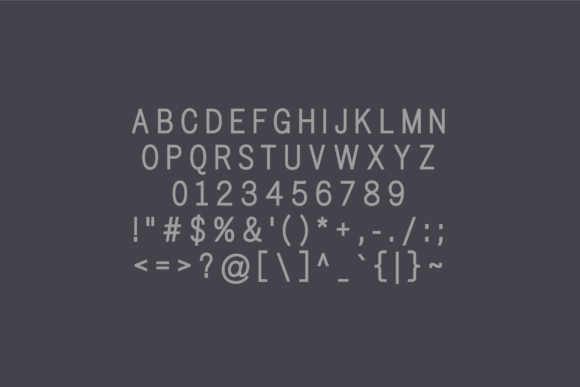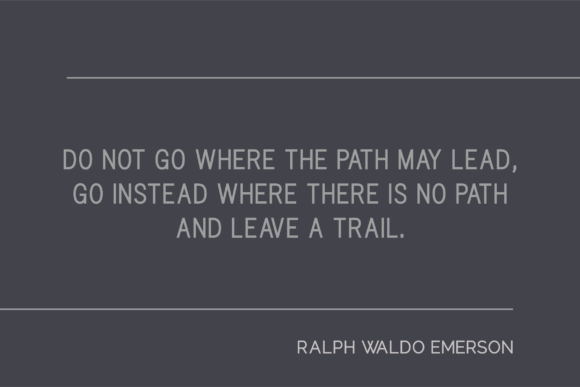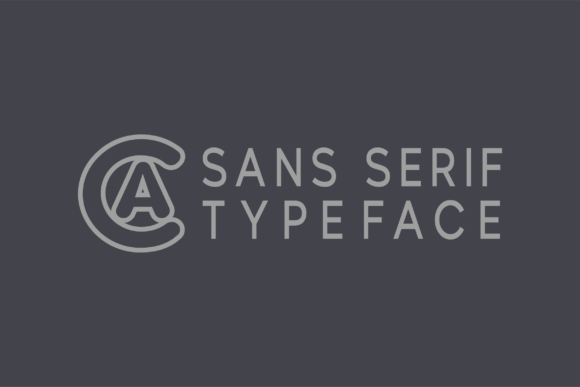
Unveiling Heliandor Font: A Masterpiece of Elegance and Versatility
In the realm of typography, few fonts manage to strike a balance between sophistication and modernity as effortlessly as Heliandor. This sans serif typeface is a testament to elegant design, boasting a comprehensive lineup of characters that cater to a wide array of creative needs. Whether you’re a designer looking for the perfect font for your next project or a crafty individual seeking to add a touch of elegance to your DIY endeavors, Heliandor is a name that you won’t want to overlook.
The Anatomy of Heliandor
At the heart of Heliandor’s appeal lies its meticulously crafted design. This font comes equipped with a complete lineup of uppercase characters, ensuring that your text always commands attention with its clear, bold presence. But that’s not all – Heliandor also includes digits from 0 to 9, making it an excellent choice for any project that requires numerical data to be presented with equal flair. Furthermore, an impressive selection of punctuation and symbols ensures that you have all the tools you need to convey your message with precision and style.
One of the standout features of Heliandor is its fluid adaptability. This font is not confined to a single use case; rather, it is a versatile tool that can be employed across a myriad of applications. For businesses and entrepreneurs, Heliandor offers a sophisticated solution for crafting memorable logos that stand out in a crowded marketplace. Its modern aesthetic and clean lines make it an ideal candidate for brands looking to project a sleek, contemporary image.
Romance and Elegance
For those special occasions, Heliandor proves to be a valuable asset in the world of wedding planning and design. Wedding invites crafted with Heliandor exude a sense of romance and luxury, setting the tone for a sophisticated and memorable event. The font’s elegant appearance lends a touch of class to any wedding-related material, ensuring that your big day is remembered for its impeccable taste.
Adding Voice and Edge
Heliandor is not just limited to logos and wedding invitations; it also finds a home in the world of advertising and publishing. When it comes to giving voice to quotes, this font shines by presenting text in a visually appealing manner that captures the reader’s attention. Its modern sans serif design adds an edge to advertisements, making them stand out on the pages of magazines and on digital platforms. For print and magazine layouts, Heliandor imparts a level of style that elevates the reading experience, turning mere text into an engaging visual journey.
An Experience Beyond Reading
The true beauty of Heliandor lies in its ability to transform the act of reading into an experience. When text is set in Heliandor, it doesn’t just convey information; it invites the reader to engage with the content on a deeper level. The font’s elegant design and versatile character set make it an excellent choice for anyone looking to add a touch of sophistication to their projects. Whether you’re working on a professional design or a personal craft, Heliandor ensures that your text is not merely read, but experienced.
In conclusion, Heliandor is more than just a font – it’s a design statement. Its blend of sophistication and modernity, coupled with its versatility and elegant design, make it an indispensable tool for designers and crafters alike. With Heliandor, you gain access to a world of creative possibilities, from crafting memorable logos and wedding invitations to adding style to advertisements and magazine layouts. Experience the power of Heliandor for yourself and discover how this remarkable font can elevate your projects to new heights of elegance and sophistication.